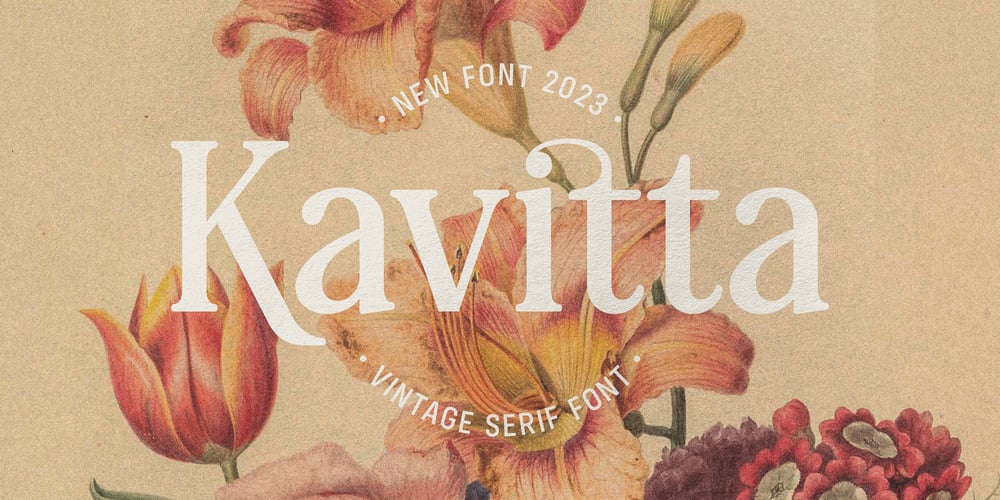
Kavitta
Kavitta font
Kavitta Font Family was designed by Abul Almaududi and published by Pixesia Studio. Kavitta contains 1 styles and family package options. Introducing Kavitta – Modern Clean SerifKavitta is a modern and classic serif typeface that exudes nostalgia and elegance in equal measure. With its clean lines and bold strokes, Kavitta offers a touch of luxury and sophistication to any design project. Its fancy and retro look make it the perfect choice for creating eye-catching headlines, logos, and branding materials. Whether you’re designing for print or digital media, Kavitta is the ideal choice for any project that requires a touch of vintage charm and modern aesthetics. FEATURES- Stylistic Alternates- Ligatures- PUA Encode- Uppercase and Lowercase letters- Numbering and Punctuations- Multilingual Support- Works on PC or Mac- Simple Installation- Support Adobe Illustrator, Adobe Photoshop, Adobe InDesign, also works on Microsoft WordHope you Like it.Thanks.